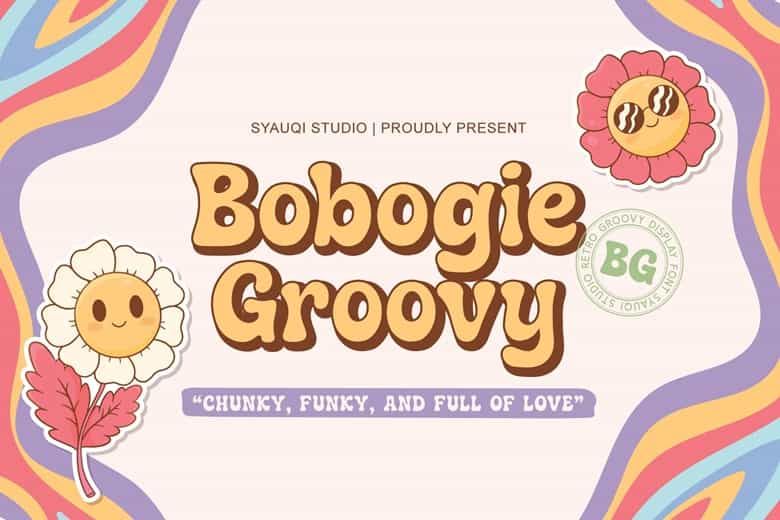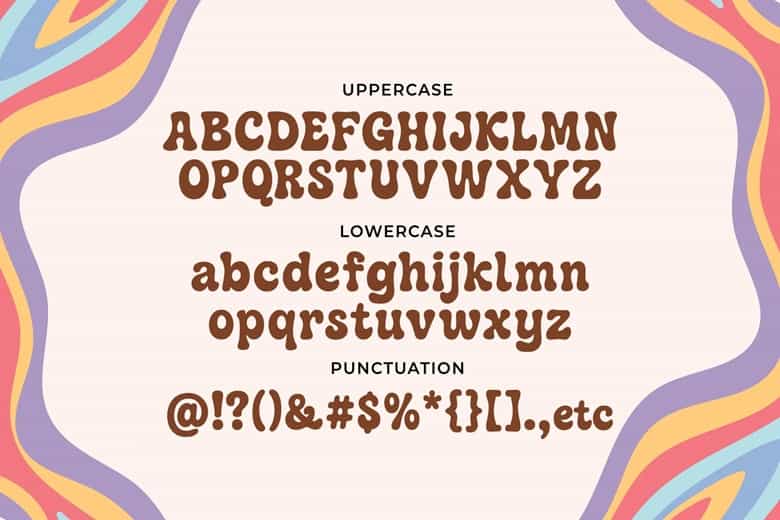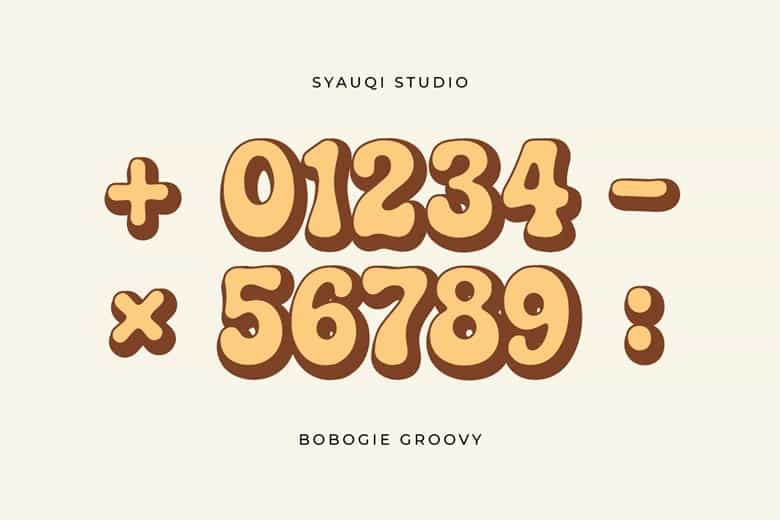
Enter the world of yellowish hues, swirly shapes, and the funky mood with Bobogie Groovy new-fangled retro display font that is a bold retro display font that goes back to the glamorous era the 60s and 70s. This font plays with character, mixing blocky roundness, child-like shapes and having fun with rhythm so any project will be singing. Be it a psychedelic poster, a retro-inspired logo, or a package that requires a touch of retro-futurism and a dose of hippie-disco time warp,